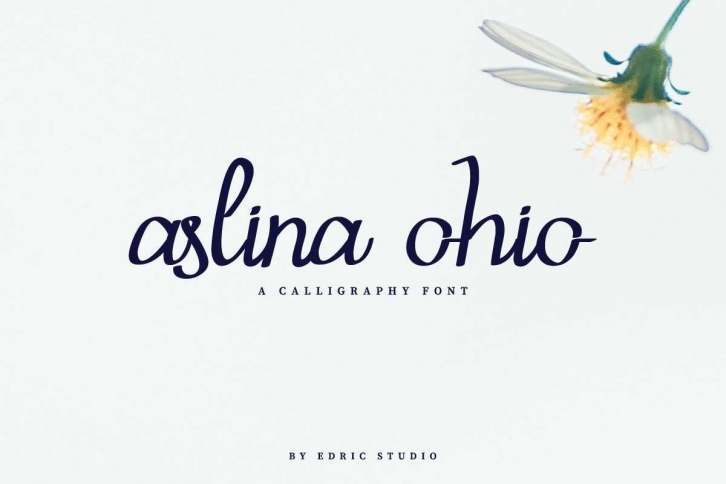
Aslina Ohio is a beautiful font that was designed by EdricStudio. It's a great choice for designers and creatives who need such a font. It was released on June 10, 2020 and the file size is 11.1 MB. Aslina Ohio may give a more youthful, expressive and casual look to your project. It is a very beautiful, refined, elegant, and high-quality font.